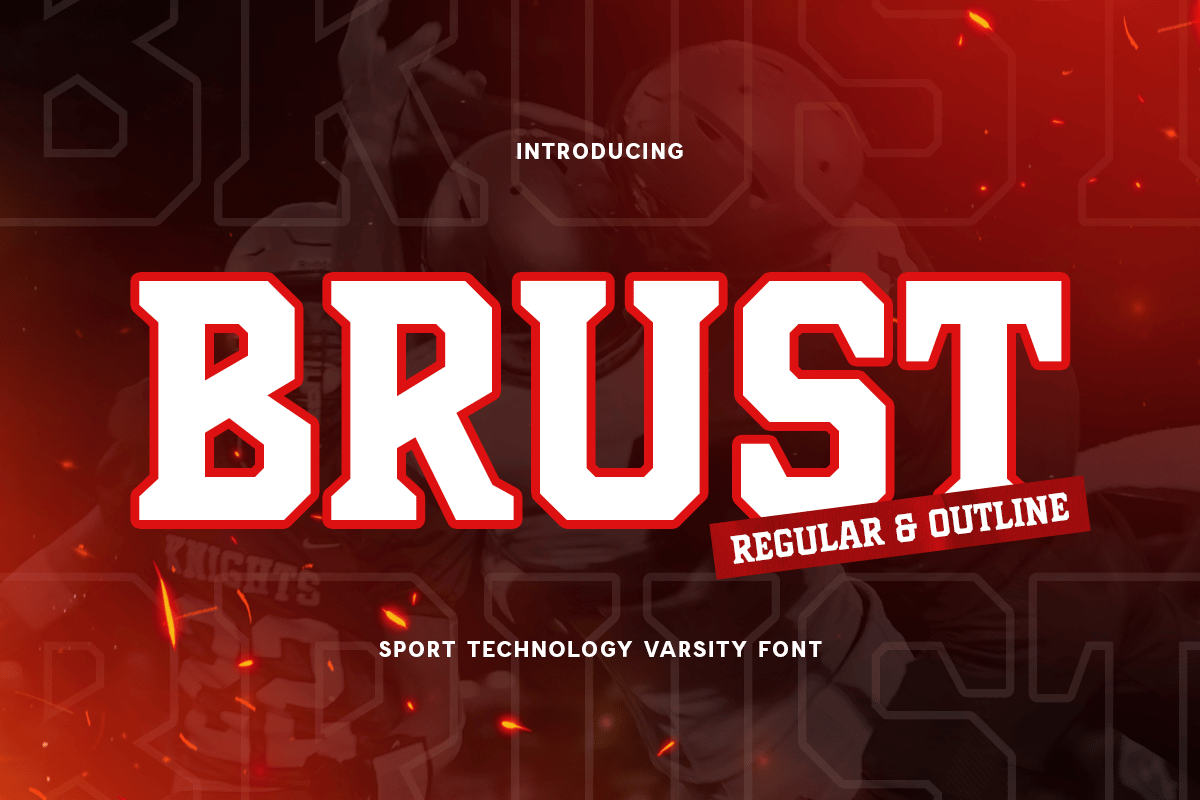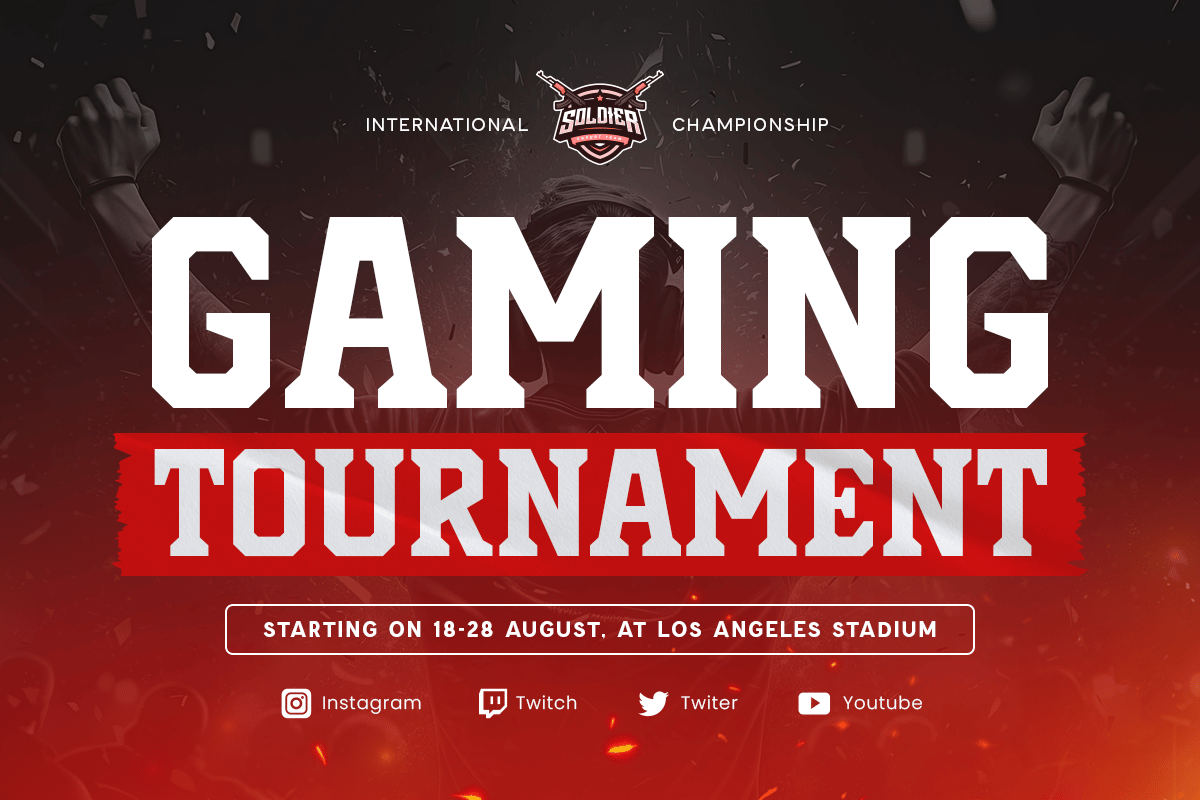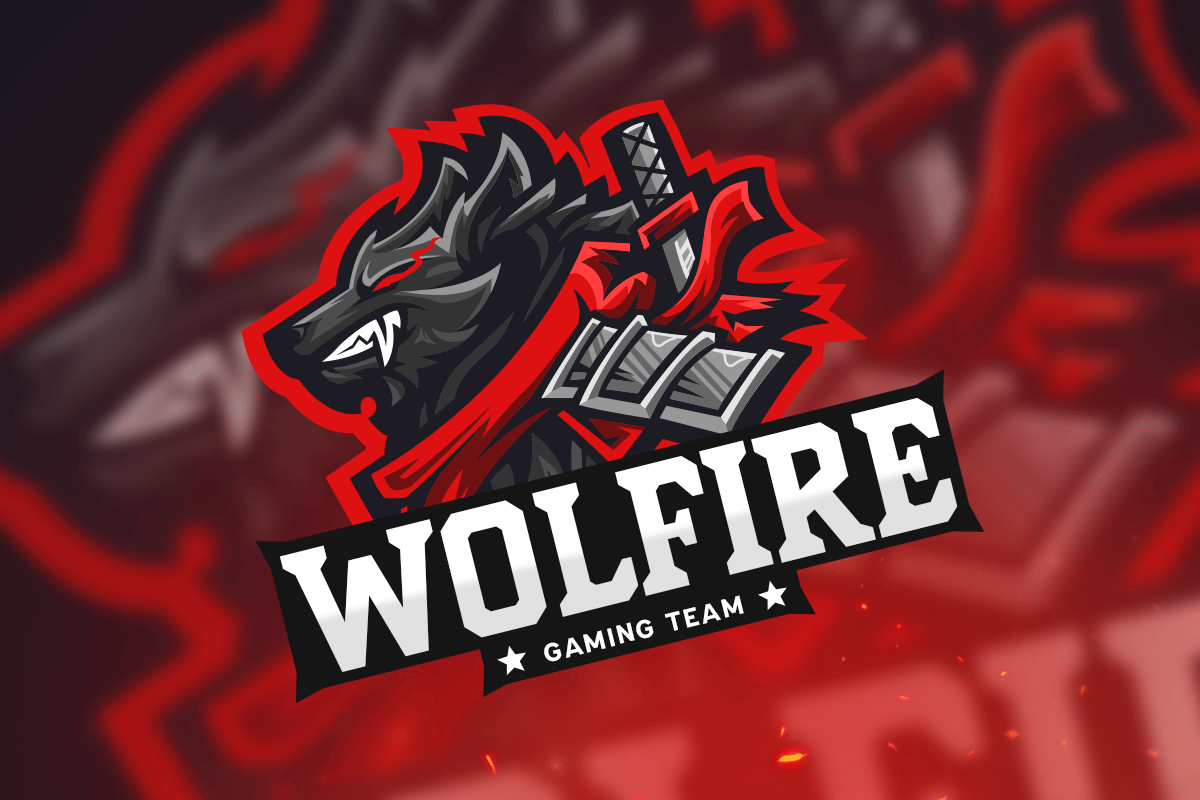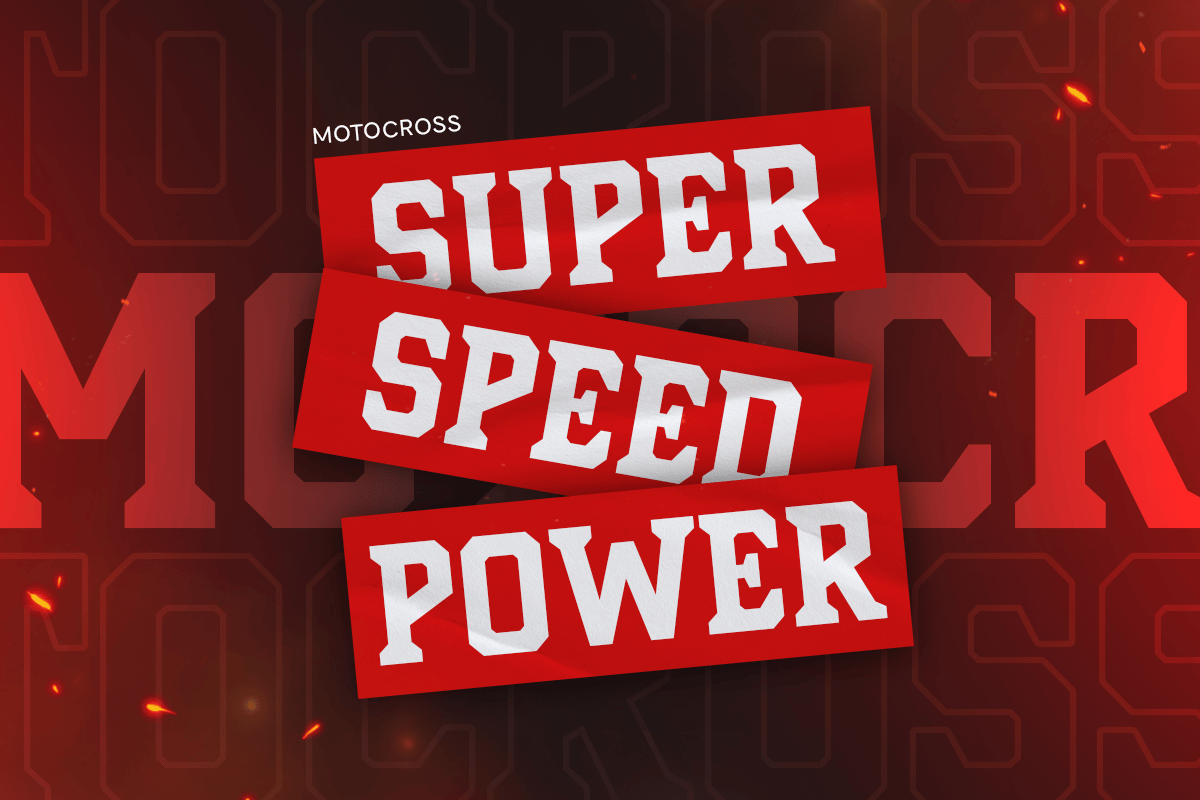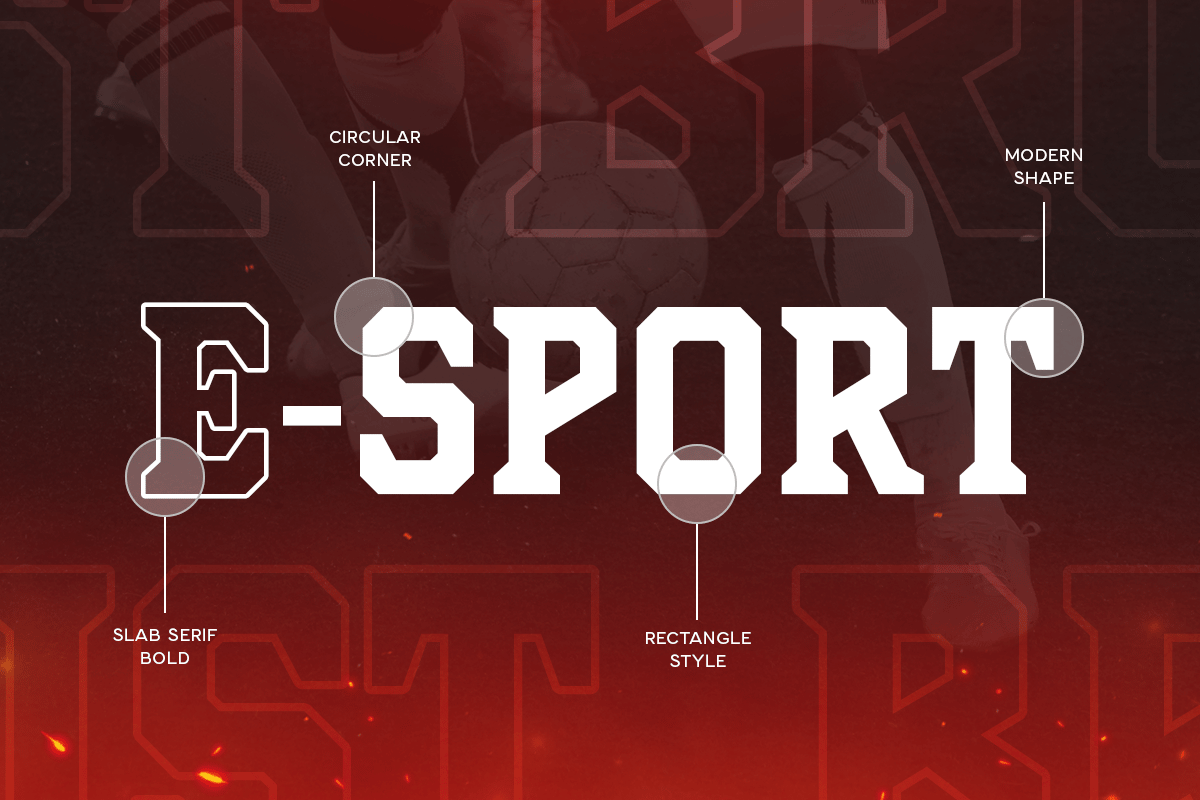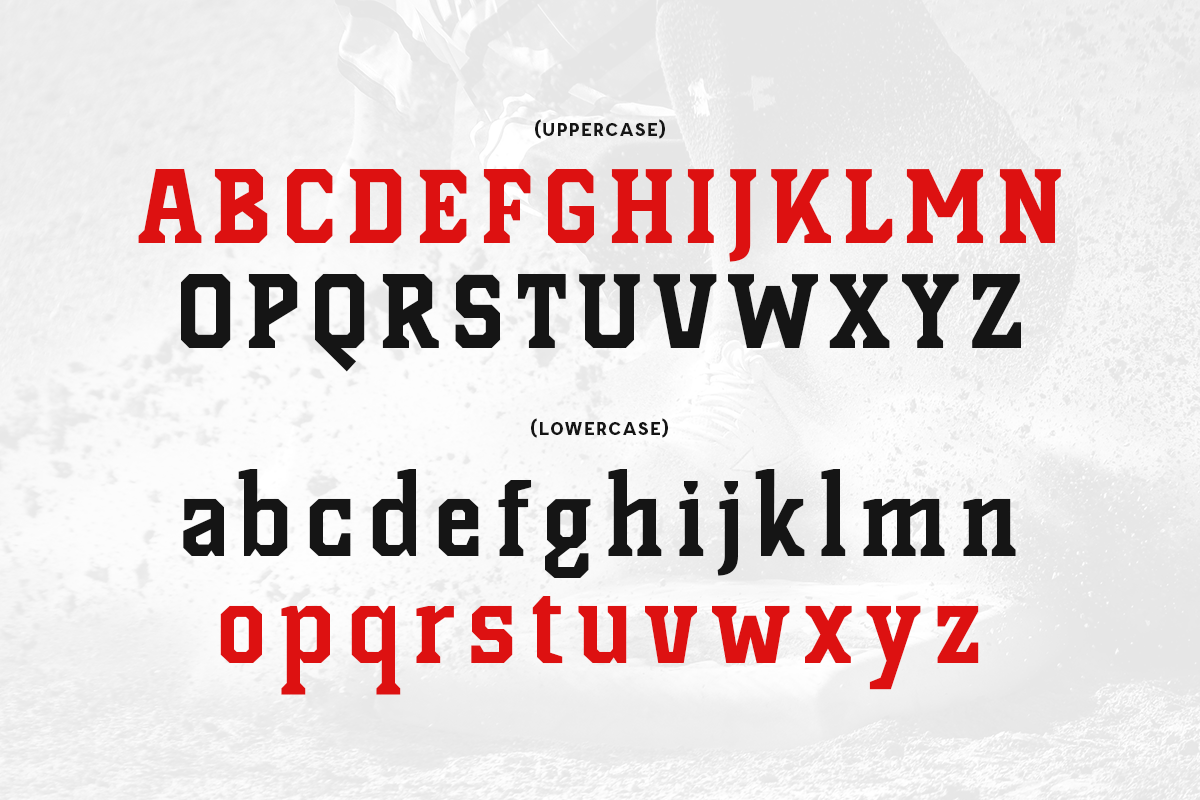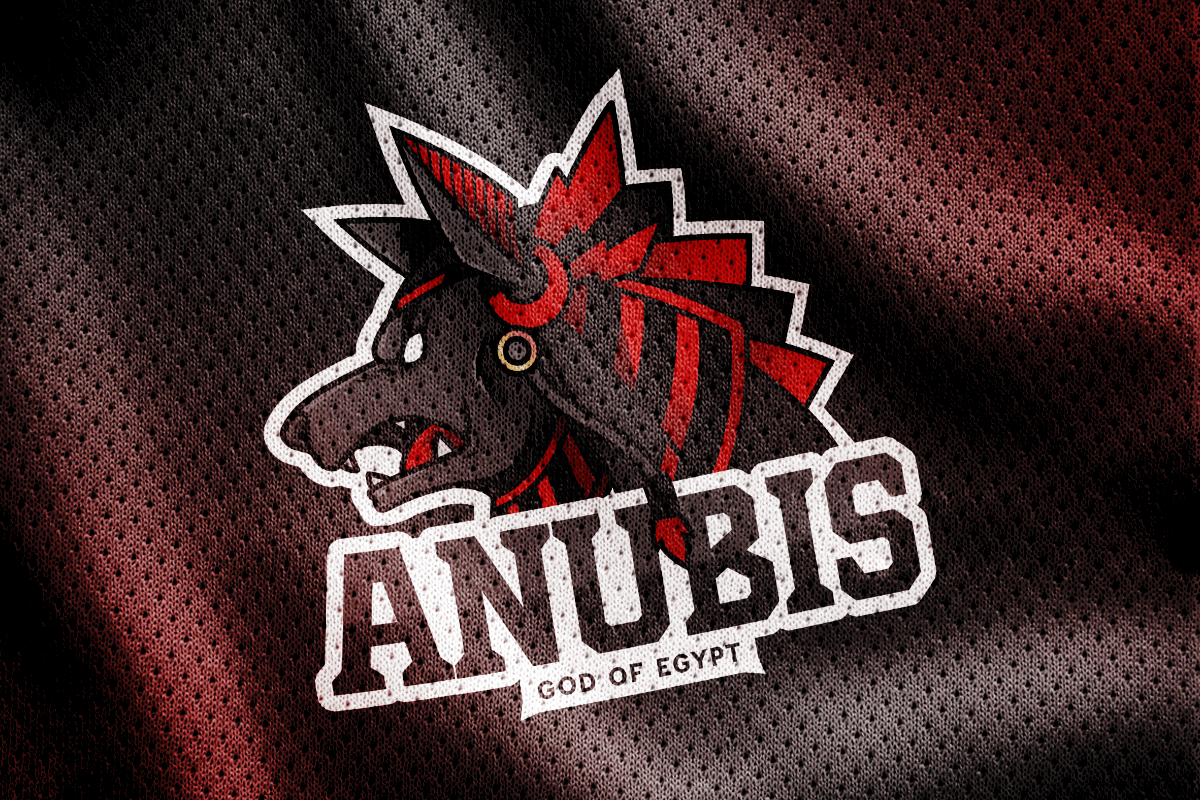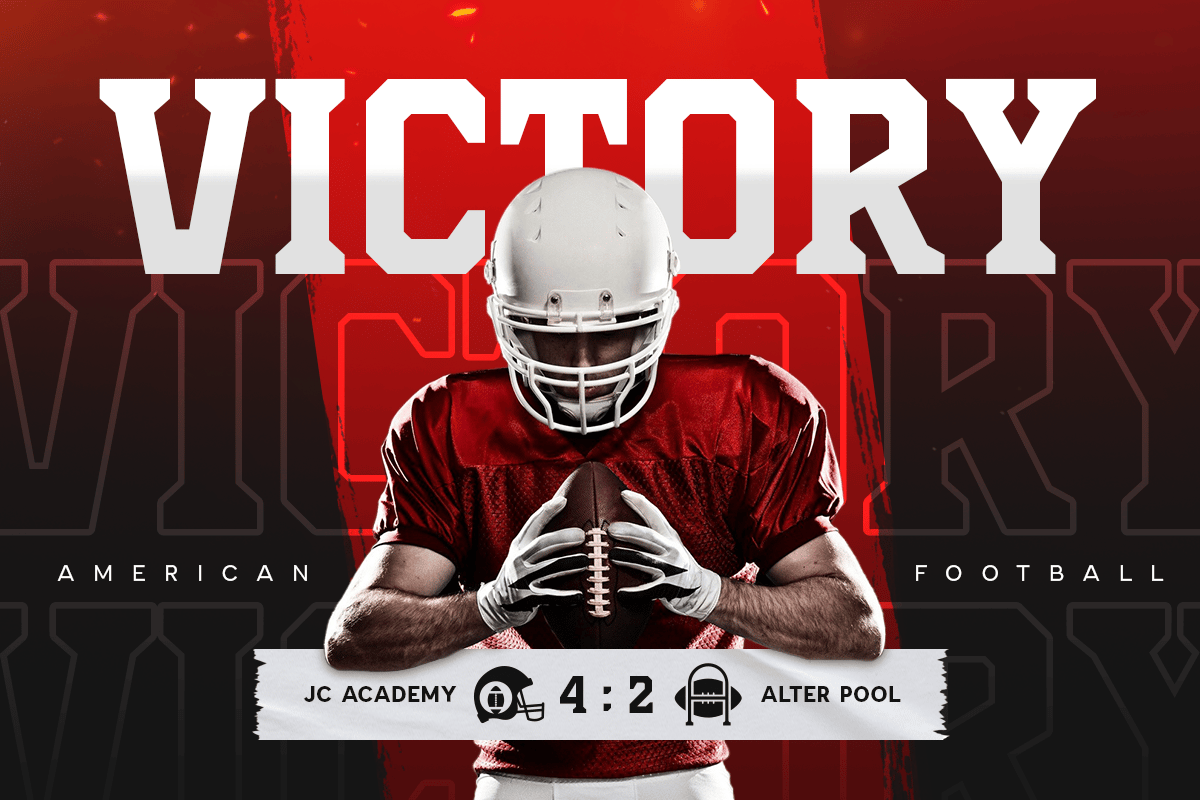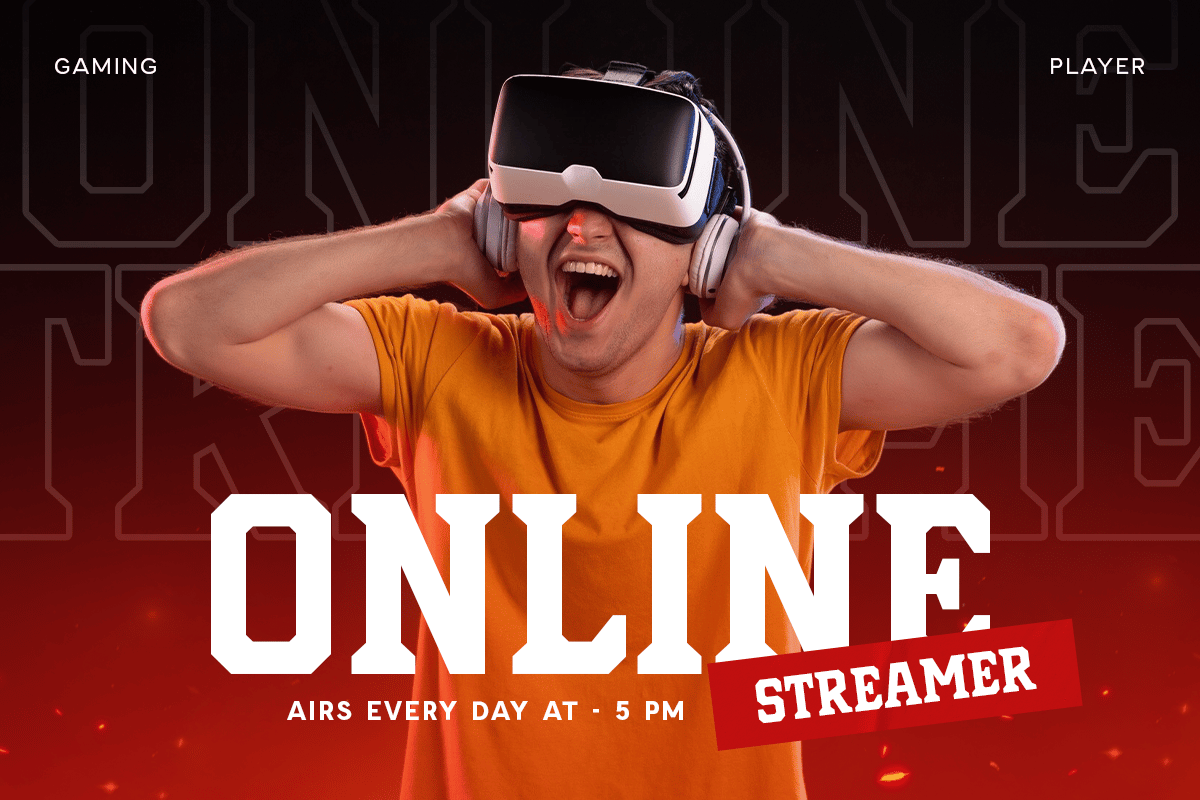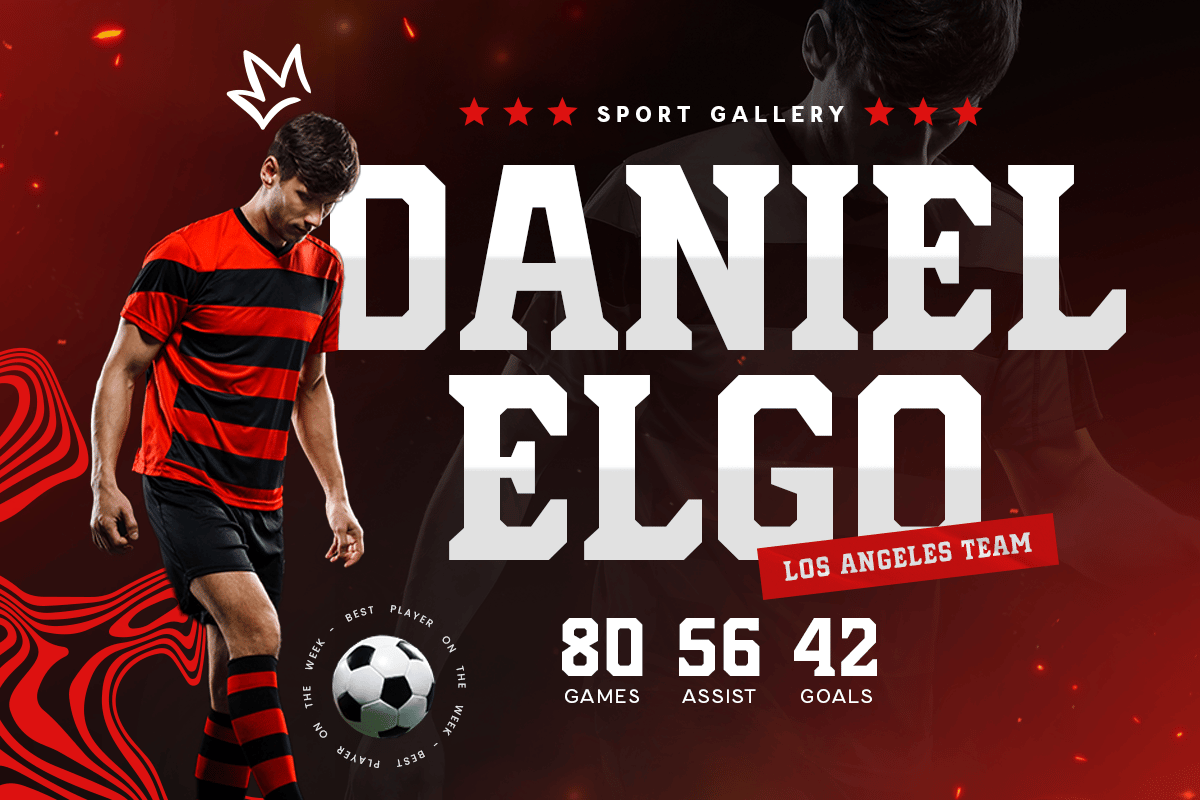
Brust – Sport Technology Varsity Font
Introducing Brust, a font that fuses the energy of sports with the cutting-edge feel of technology. Designed for e-sports and varsity-inspired projects, Brust brings a bold and dynamic edge to your designs, making it perfect for gaming, sports branding, and tech-savvy projects.
The Story Behind Brust:
Brust was inspired by the high-octane world of sports and the sleek, innovative aesthetics of modern technology. This font captures the spirit of competition and the drive for excellence, combining traditional varsity elements with a futuristic twist. Each character in Brust is crafted to convey strength and agility, ensuring your designs stand out in the competitive world of e-sports and sports branding.
Brust Font Features:
- Athletic Design: Bold and dynamic, perfect for sports and e-sports projects.
- Technological Edge: Sleek lines and modern curves that reflect high-tech aesthetics.
- Versatile Usage: Ideal for logos, team branding, gaming interfaces, and varsity-themed designs.
- High Impact: Clear and powerful, ensuring your message is delivered with force.
- Dynamic Characters: Unique letterforms that add energy to your designs.
- Inspirational Previews: Includes sample designs to ignite your creativity.
Perfect For:
- E-sports Teams: Create bold and memorable logos and branding for gaming teams.
- Sports Branding: Design dynamic logos, uniforms, and merchandise for sports teams.
- Gaming Interfaces: Develop sleek and modern interfaces for gaming applications.
- Varsity Projects: Add a competitive edge to school projects, yearbooks, and more.
With Brust, your designs will embody the strength and innovation of the sports and technology worlds. Whether you’re working on e-sports branding, sports merchandise, or tech projects, Brust provides the perfect combination of modern design and athletic energy. Dominate your design game with Brust and let your creativity lead the way to victory.